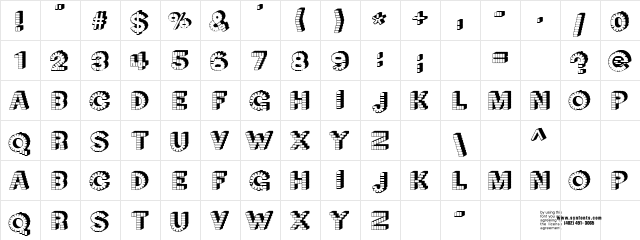
Neck Candy Regular Font Preview
Neck Candy Regular
Design Context for Neck Candy Typeface
Neck Candy is a composed and adaptable typeface that performs quietly and consistently across a wide range of design contexts.